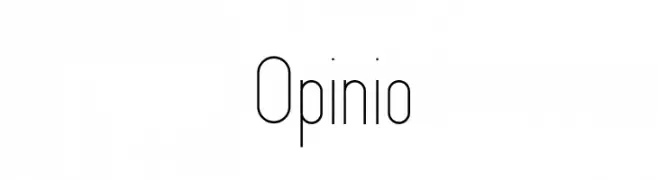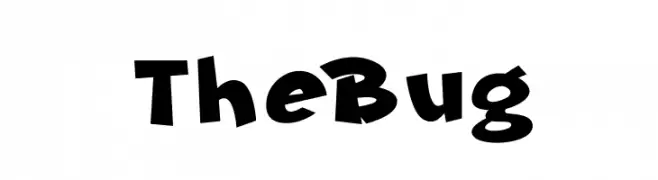
A fluid, handwritten-style font with elegant, connected characters.
A bold, geometric font with a futuristic, angular design.
A bold, energetic brush-style font with irregular, jagged strokes.
A bold, geometric font with sharp, angular characters.
A bold, graffiti-inspired font with dynamic, expressive characters.
A bold, playful, hand-drawn font with a friendly and approachable style.
A Morse code-inspired decorative font using dots and dashes.
A futuristic, geometric font with sharp angles and a bold, digital aesthetic.
A playful, handwritten-style font with bold, rounded characters.
A modern, condensed sans-serif font with tall, narrow characters and uniform stroke width.
A playful, rounded font with smooth curves and a friendly appearance.
A bold, rounded font with a playful and modern aesthetic.
A bold, modern sans-serif font with geometric lines and strong presence.
A bold, rounded, and playful font with a hand-drawn feel.
A playful, casual handwritten font with irregular strokes and a friendly appearance.
A playful and elegant script font with flowing cursive letterforms.
A playful, hand-drawn font with thin, consistent strokes and a whimsical style.
A playful, outlined font with rounded, whimsical characters.
A decorative cursive font with elegant loops and swirls.
A bold, cursive font with decorative loops and high contrast, perfect for eye-catching designs.
A graceful and elegant script font with flowing, cursive letterforms.
An elegant and sophisticated script font with intricate, flowing characters.
A bold, decorative script with intricate swirls and loops.
An elegant, flowing script font with interconnected letters and dynamic strokes.
A bold, dramatic script font with sharp, angular strokes and a calligraphic flair.
A whimsical, cursive font with elegant loops and dynamic contrast.
A bold, decorative font with dynamic strokes and playful curves.